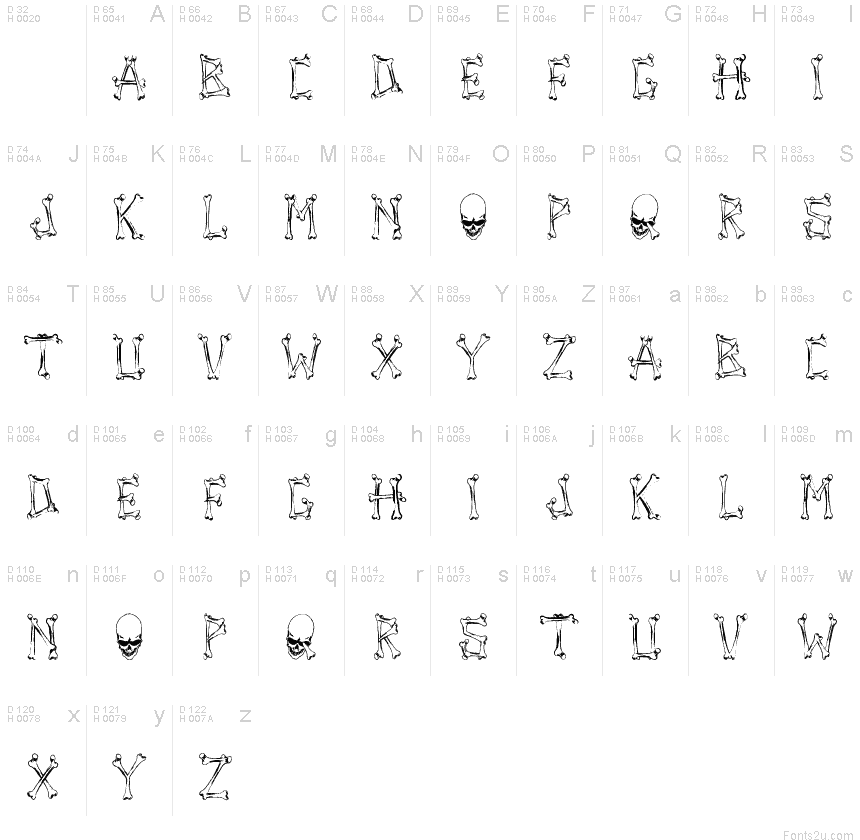
Tengkorak_COE
Tengkorak COE is a free scary cartoon display font built from long bones, knobby joints, and scattered skeletal fragments. Uneven contours and changing bone shapes give the capitals a rough, animated silhouette, with a grinning skull worked into one round form.
For horror fans and Halloween crowds, it suits game graphics, event branding, costume packaging, and themed merchandise because the lettering doubles as macabre illustration. Haunted-house posters are its most convincing home.